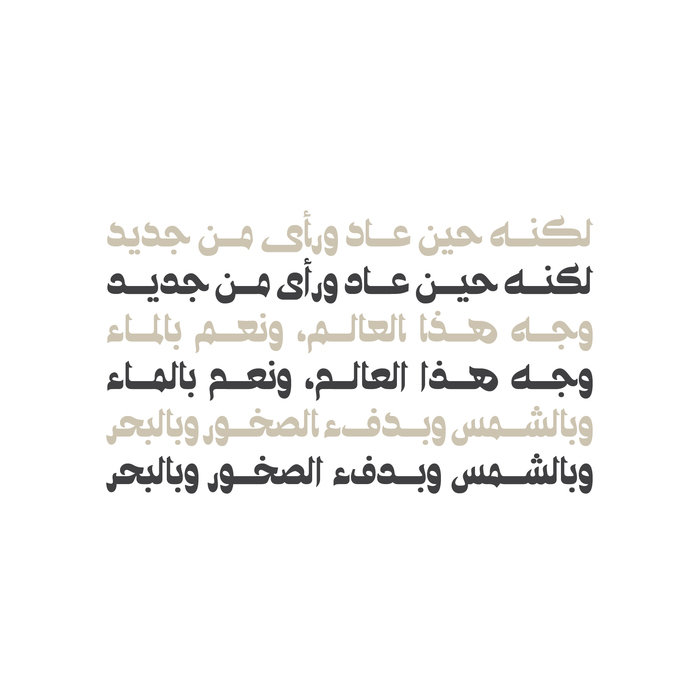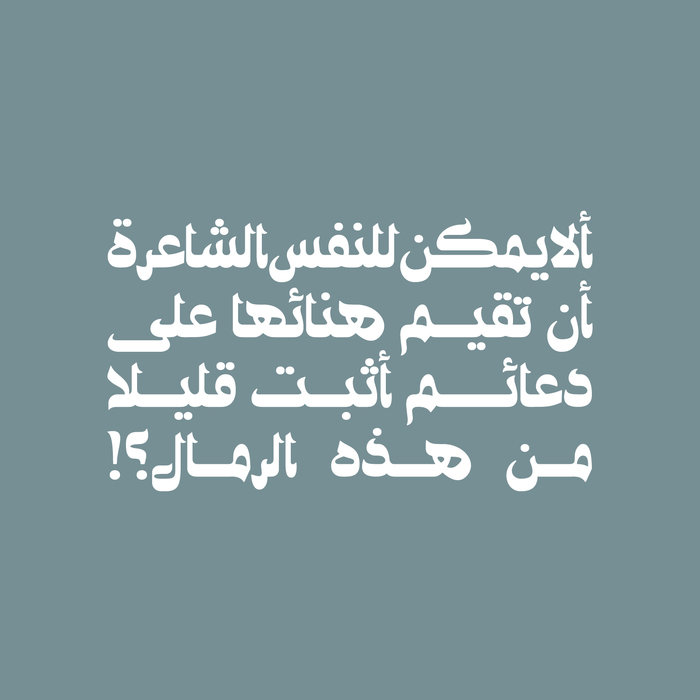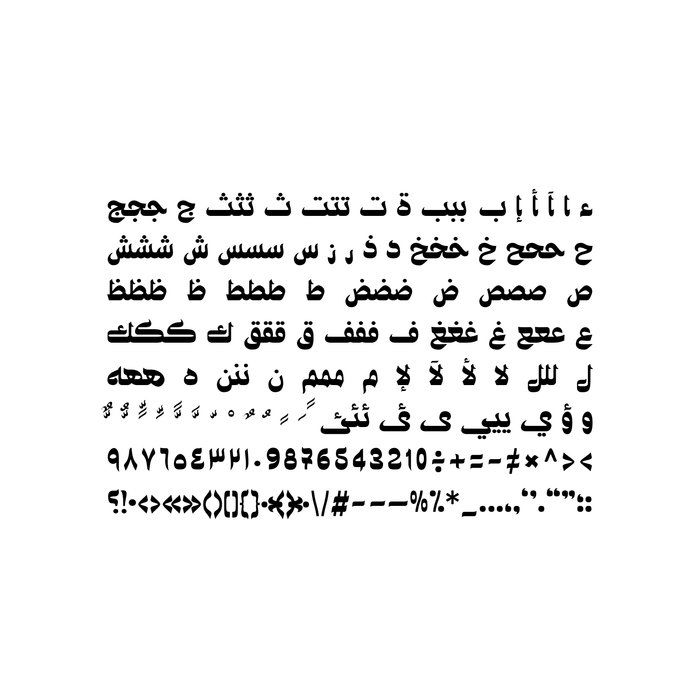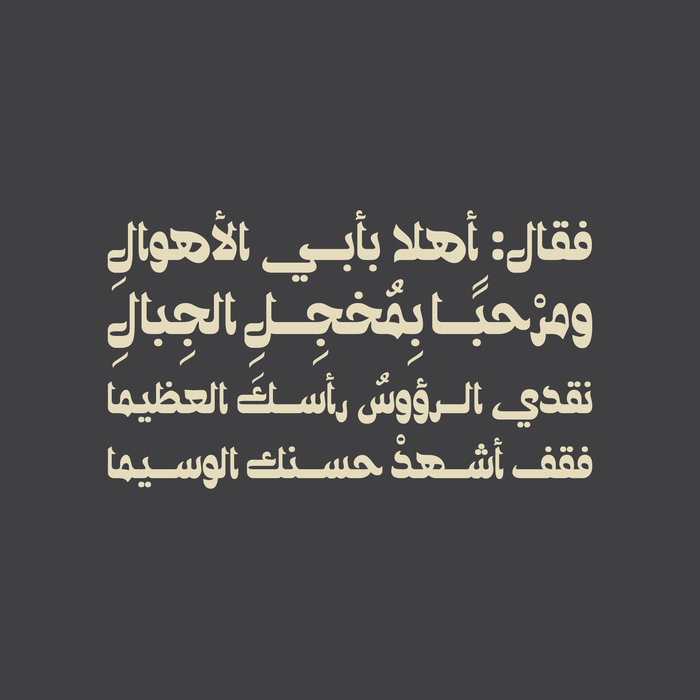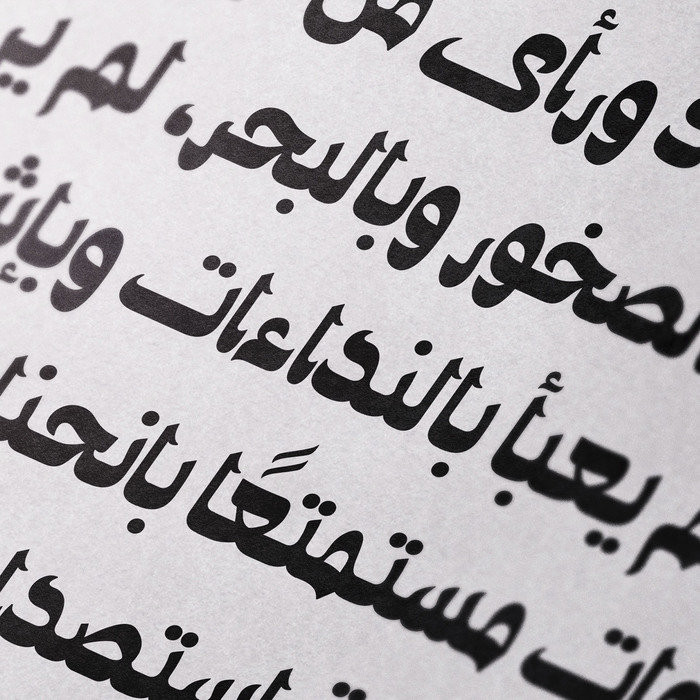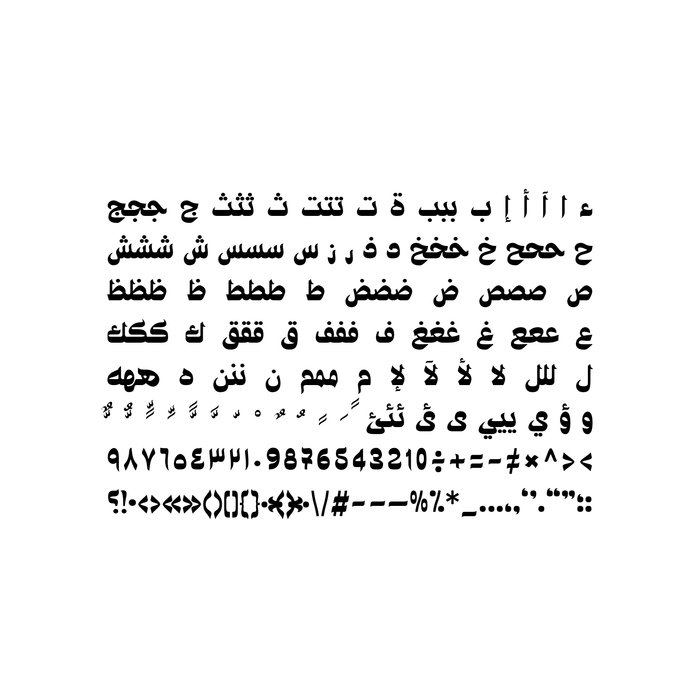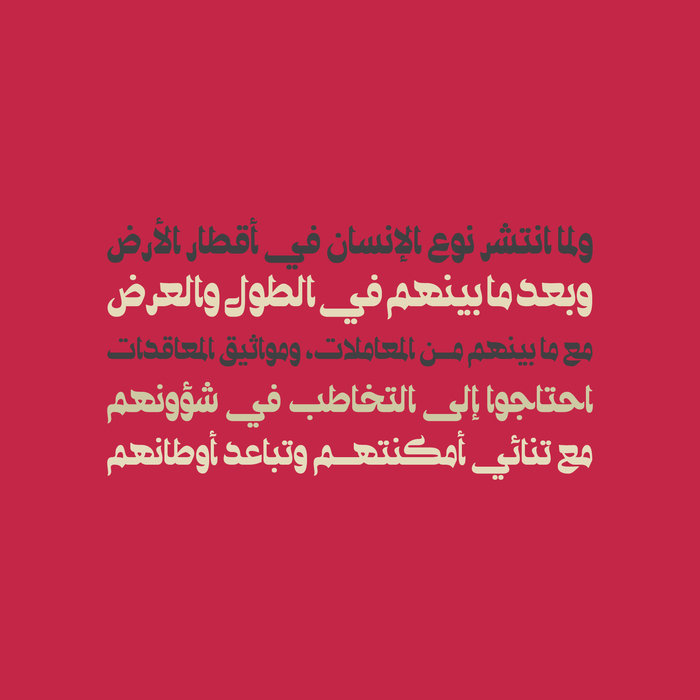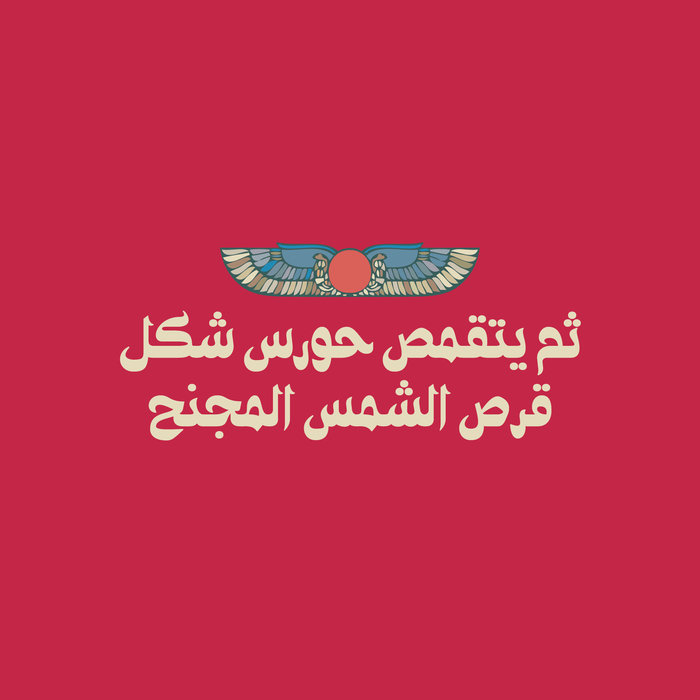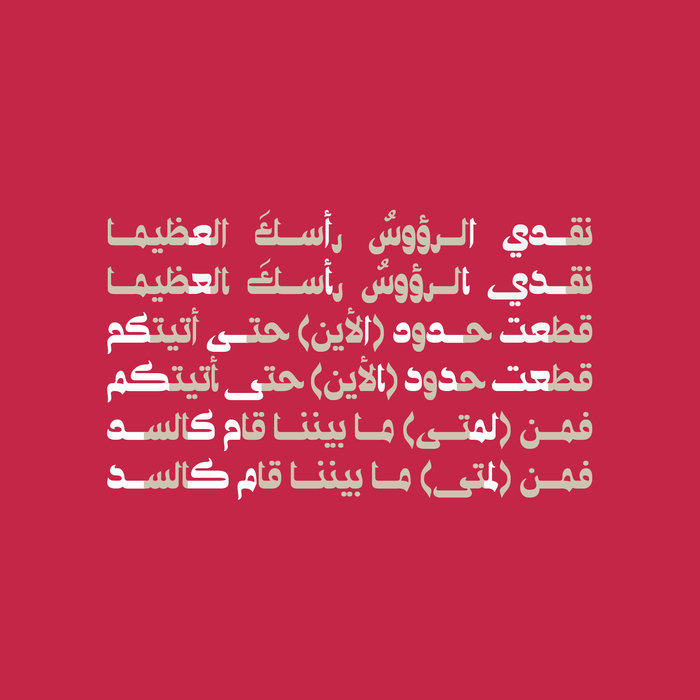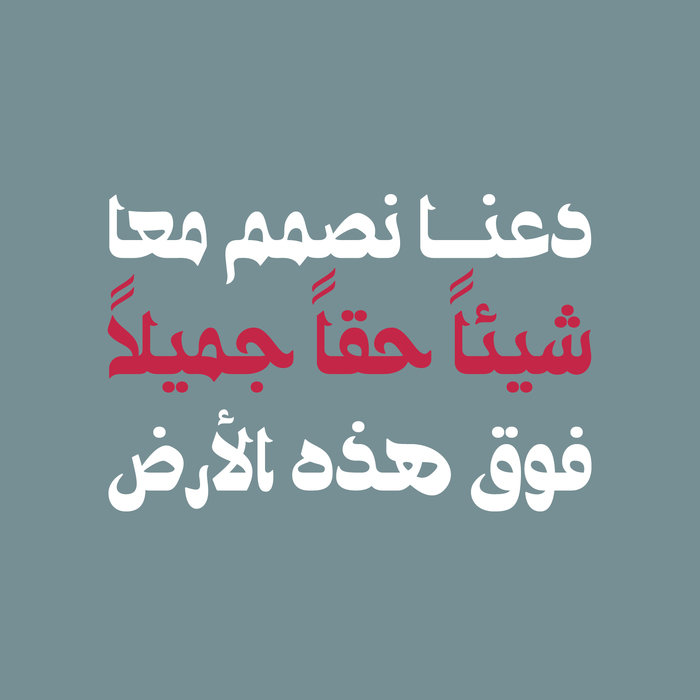
Ostouri - Arabic Font
‘Ostouri’ is the Arabic for Legendary. Just like a legend, this is an Arabic display font that weaves intellect with imagination in a harmonious flow of letterforms. Ostouri demonstrates a mysterious beauty of Arabic typography which is found to be essential for narrative content titling. The font is also suitable for branding and visual advertising.